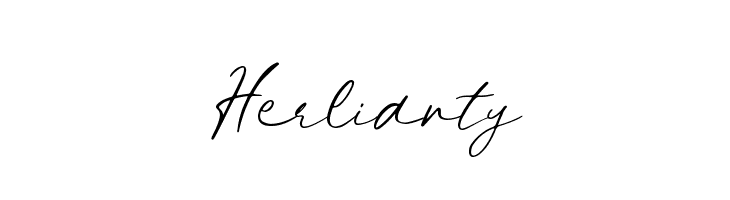
An elegant, flowing script font with a handwritten appearance.
A graceful and flowing script font with elegant, connected strokes.
A flowing, elegant cursive font with seamless character connections.